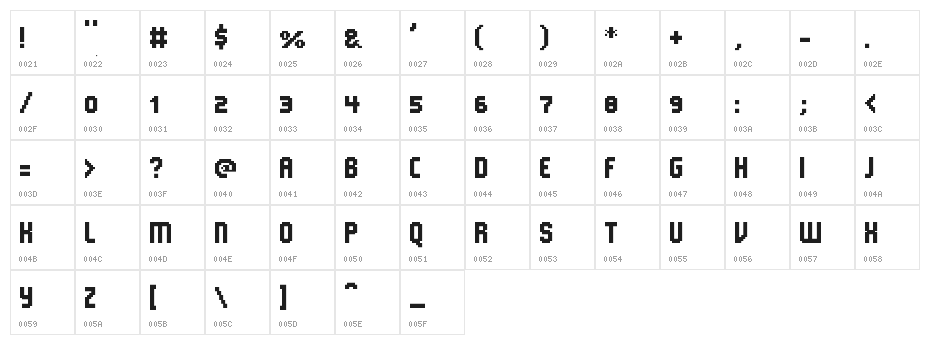
V5 Loxica Robusta Font
V5 Loxica Robusta Description
This font features a bold, pixelated style reminiscent of early digital typography. Each character is constructed with a blocky, geometric design, giving it a distinctive retro and tech-inspired appearance. The uppercase and lowercase letters maintain a consistent height, contributing to a uniform look across text. The numerals and special characters are designed with the same pixelated approach, ensuring visual coherence. This font's unique style makes it stand out, ideal for projects that require a digital or vintage gaming aesthetic.
| Overall Style | Retro, Digital |
| Proposed Projects | Ideal for video game design, retro-themed posters, digital art, and tech-related branding. |